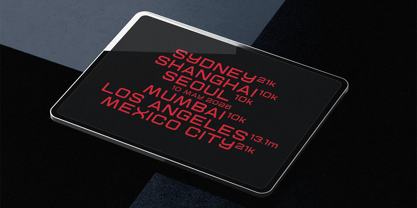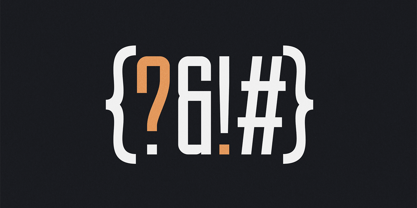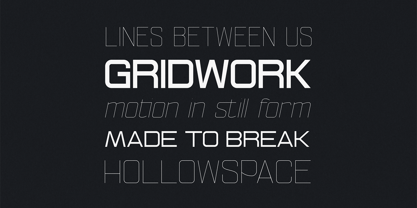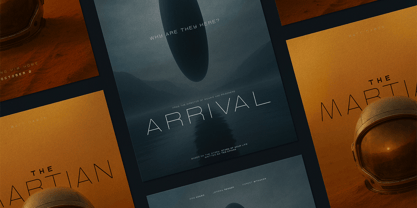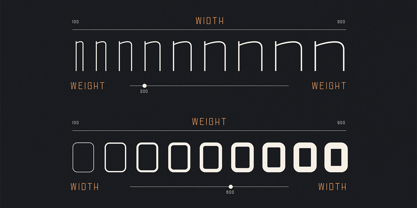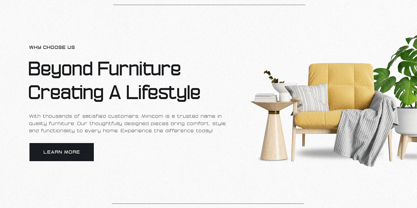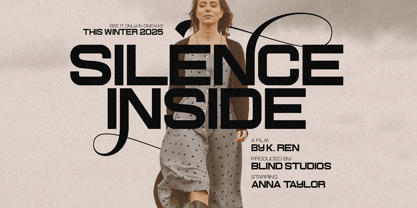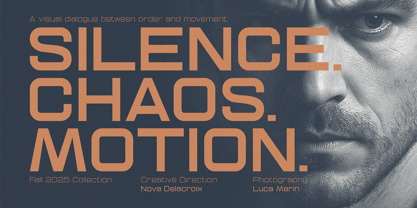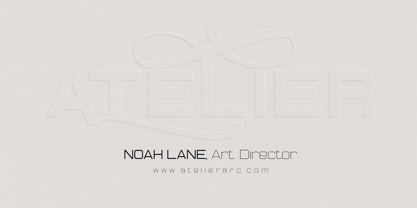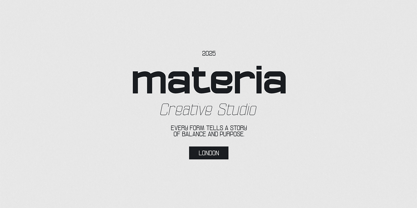
Ethere S VF
by VP Creative Shop
The Ethere S VF Font Family was designed by Vladimir Fedotov, Plamen Petrov and published by VP Creative Shop. Ethere S VF contains 2 styles and family package options. More about this family
Ethere is a modern sans-serif typeface crafted for creators, brands, and designers who value precision and versatility. Built to adapt across any creative medium, Ethere delivers a clean geometric form infused with subtle humanist touches — a balance of technology and emotion. Ethere offers full creative flexibility for branding, editorial design, packaging, posters, web, and UI. Its variable font support allows you to fine-tune width and weight seamlessly, giving total control over visual expression. Every detail is refined — from its creative alternate glyphs and ligature options to extensive multilingual support covering 87+ languages. Whether you’re crafting a futuristic logo, cinematic title, or luxury brand identity, Ethere gives your typography a timeless yet progressive voice.